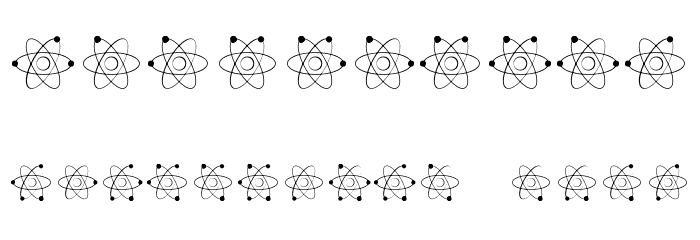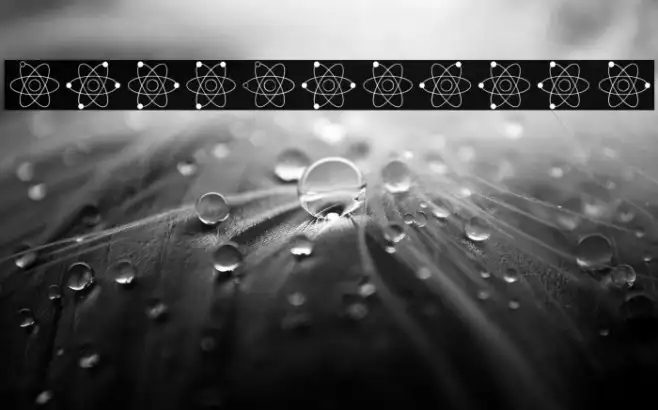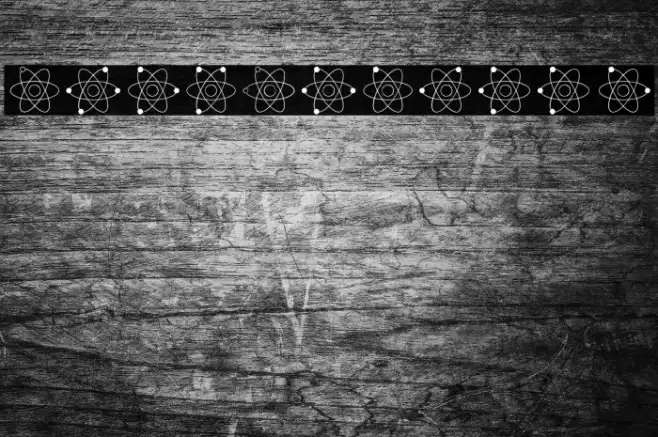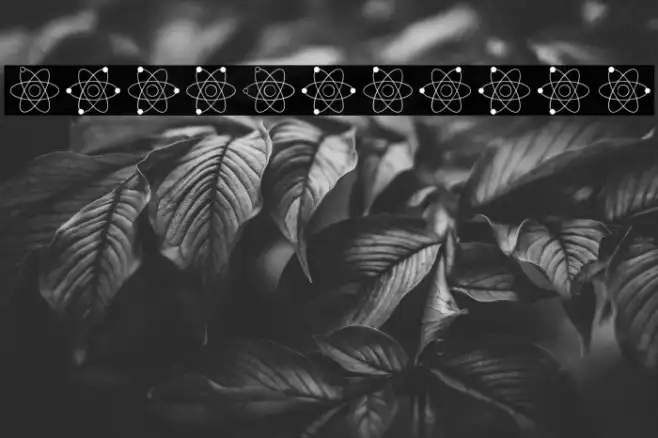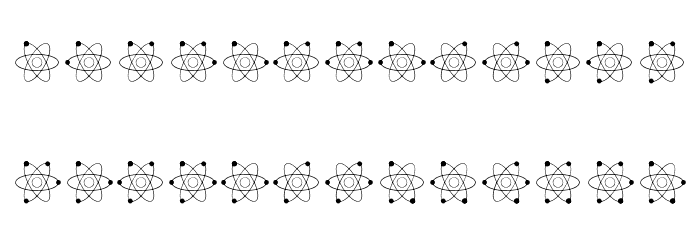
AtomBraille Font
This design features a series of atomic symbols, each with a nucleus surrounded by orbiting electrons. The symbols are uniform in size and style, creating a cohesive and visually intriguing pattern. The design is consistent across all characters, maintaining a scientific and modern aesthetic. The use of simple lines and dots gives it a clean and minimalistic look, making it suitable for a variety of applications where a scientific or futuristic theme is desired.
A modern, atomic-themed design with consistent symbols and a scientific aesthetic.
• Proposed Projects: Ideal for educational materials, science-themed posters, or branding for tech companies.
• Category: Decorative/Display
• Contrast: Low
• Overall Style: Modern
• Use Case: Logos, Decorative elements